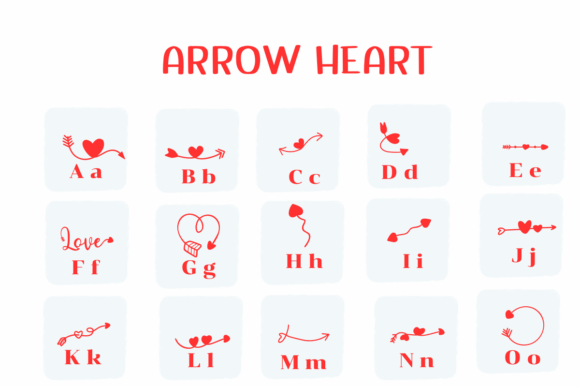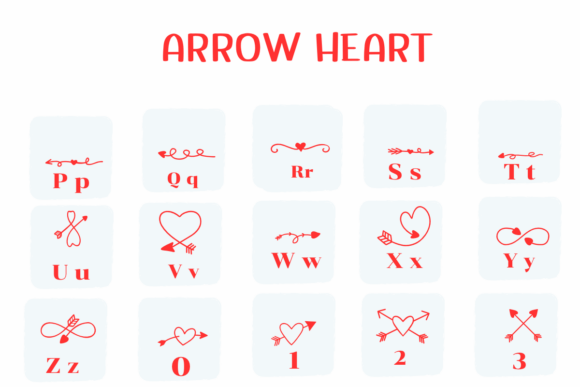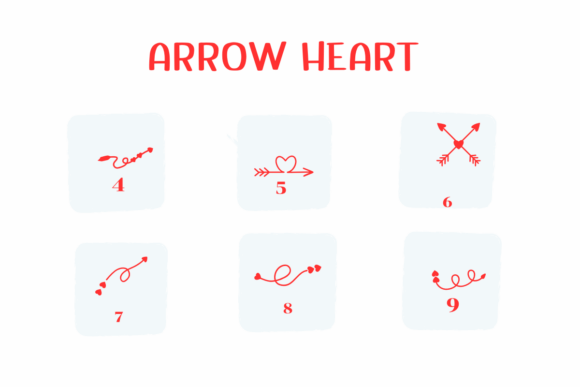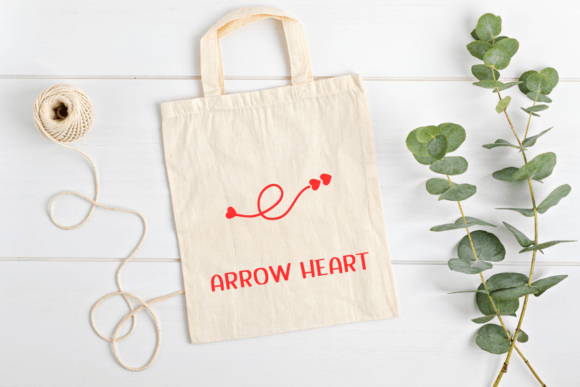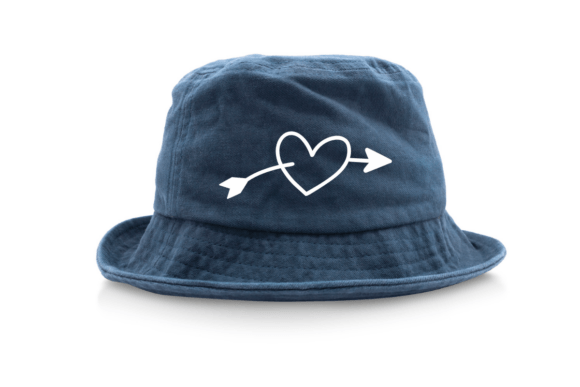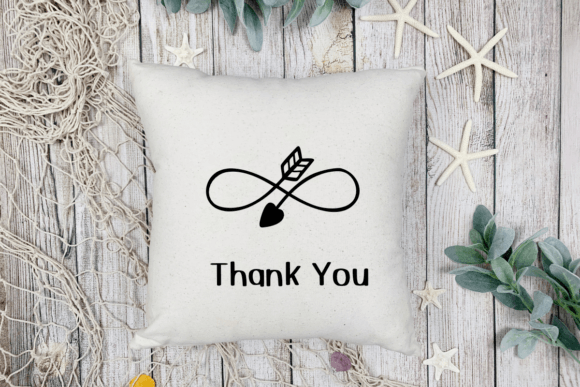
Introducing Arrow Heart Font: The Ultimate Symbol for Love and Creativity
Are you a designer, crafter, or DIY enthusiast looking for a unique and playful way to express love and affection in your projects? Look no further than the Arrow Heart Font, a delightful dingbat font that combines the classic symbol of love – the heart – with the dynamic, directional element of arrows. This charming font is perfect for adding a romantic touch to your designs, making it an ideal choice for Valentine’s Day, weddings, anniversaries, or simply to add a whimsical flair to your creative endeavors.
What is Arrow Heart Font?
The Arrow Heart Font is a fun and quirky dingbat font that features arrows cleverily designed to form heart shapes. Unlike traditional fonts, dingbat fonts like Arrow Heart are made up of symbols and shapes rather than letters, offering a unique way to add visual interest and personality to your projects. This font is not just a collection of static symbols; it’s a versatile tool that can be used in a multitude of creative ways, from crafting heartfelt messages to designing eye-catching posters and social media graphics.
Features of Arrow Heart Font
• Unique Design: The Arrow Heart Font boasts a distinctive design where arrows create heart shapes, offering a fresh and modern take on traditional heart symbols.
• Versatility: This font can be used for a wide range of projects, including but not limited to, Valentine’s Day cards, wedding invitations, DIY crafts, and social media posts.
• Ease of Use: Being a dingbat font, it is incredibly easy to use. Simply type the corresponding keyboard key to insert the heart-arrow symbol into your design.
• Scalability: The Arrow Heart Font remains clear and aesthetically pleasing even when scaled up or down, making it perfect for both large and small design projects.
• Valentine’s Day Cards: Replace traditional hearts with Arrow Heart symbols for a unique and personalized touch.
• Wedding Invitations: Add a romantic and whimsical element to your wedding stationery.
• DIY Crafts: Use the Arrow Heart Font to create custom iron-on designs, decals, or even hand-painted signs.
• Social Media Graphics: Stand out on social media with custom graphics featuring the Arrow Heart symbol.
• Experiment with Colors: Play around with different colors to match your brand or project’s aesthetic.
• Combine with Other Fonts: Pair the Arrow Heart Font with complementary fonts to create visually appealing text combinations.
• Use in Patterns: Create patterns using the Arrow Heart symbol for a cohesive and impactful design.
The Arrow Heart Font is a delightful and versatile tool for designers, crafters, and anyone looking to add a touch of love and whimsy to their projects. With its unique design, ease of use, and scalability, it’s an excellent choice for a wide range of creative endeavors. Whether you’re designing for Valentine’s Day, a wedding, or simply want to infuse your work with a bit of romance and fun, the Arrow Heart Font is sure to inspire your creativity and make your designs stand out.